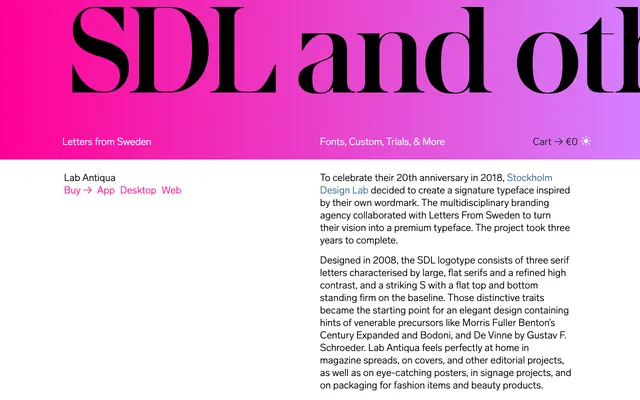
Lab Antiqua
Letters from Sweden · Stockholm Design Lab, Göran Söderström · 2022
Lab Antiqua specimen from Letters from Sweden
Originally developed as a bespoke typeface for Stockholm Design Lab's 20th anniversary, growing from the agency's own logotype into a full editorial and identity family with three optical sizes and a variable font.
Rooted in the SDL logotype designed in 2008, the family takes its cues from the wordmark's flat serifs, pronounced contrast and the distinctive flat-topped S, drawing further inspiration from Century Expanded, Bodoni and De Vinne. Two widths and three optical sizes ensure hairlines and serifs hold at any size, while a variable font allows continuous tuning across both axes. A stylistic set removes capital overshoots to prevent collisions in tightly stacked all-caps settings, making it particularly suited to covers, posters and fashion packaging.
A high-contrast serif with large flat serifs and refined hairlines, drawing explicitly on Century Expanded, Bodoni and De Vinne as formal precursors, placing it in the classical high-contrast tradition with contemporary optical sizing.